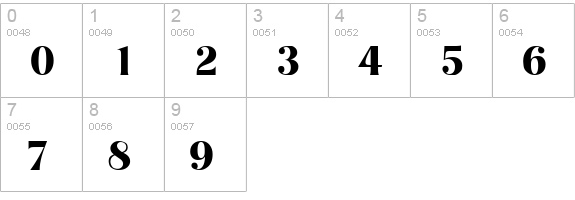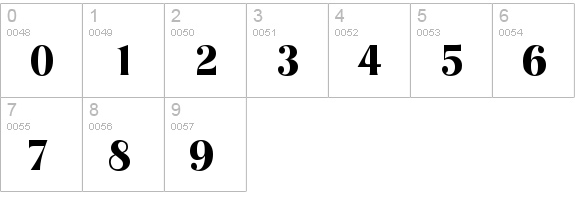
Tennessee SF Bold is a strong, high-contrast variant in the Tennessee typeface family \xE2\x80\x94 well suited to headlines, attention-grabbing titles, and strong calls-to-action.
Tennessee SF Bold font is a stunning display typeface that exudes boldness and confidence. With its strong and sharp letterforms, this font is perfect for headlines, logos, and branding projects that require a powerful and impactful visual presence. The Tennessee SF Bold font stands out with its unique design, combining geometric shapes with a contemporary twist. Its thick strokes and clean lines make it easily readable and eye-catching, even from a distance. But what sets Tennessee SF Bold font apart is not just its striking aesthetics, but also its accessibility. This incredible font is available for free download at FontsMarket.com. Yes, you read that right – you can get your hands on this remarkable typeface without spending a dime. Whether you're a graphic designer, a branding enthusiast, or simply someone looking to add a touch of boldness to your projects, Tennessee SF Bold font is the perfect choice. Its versatility allows it to shine in a variety of contexts, from posters and advertisements to websites and social media graphics. Don't miss out on the opportunity to enhance your designs with the Tennessee SF Bold font. Visit FontsMarket.com today and experience the power of this freely available typeface. Give your projects a unique and captivating edge with Tennessee SF Bold font – the bold choice for expressive typography.